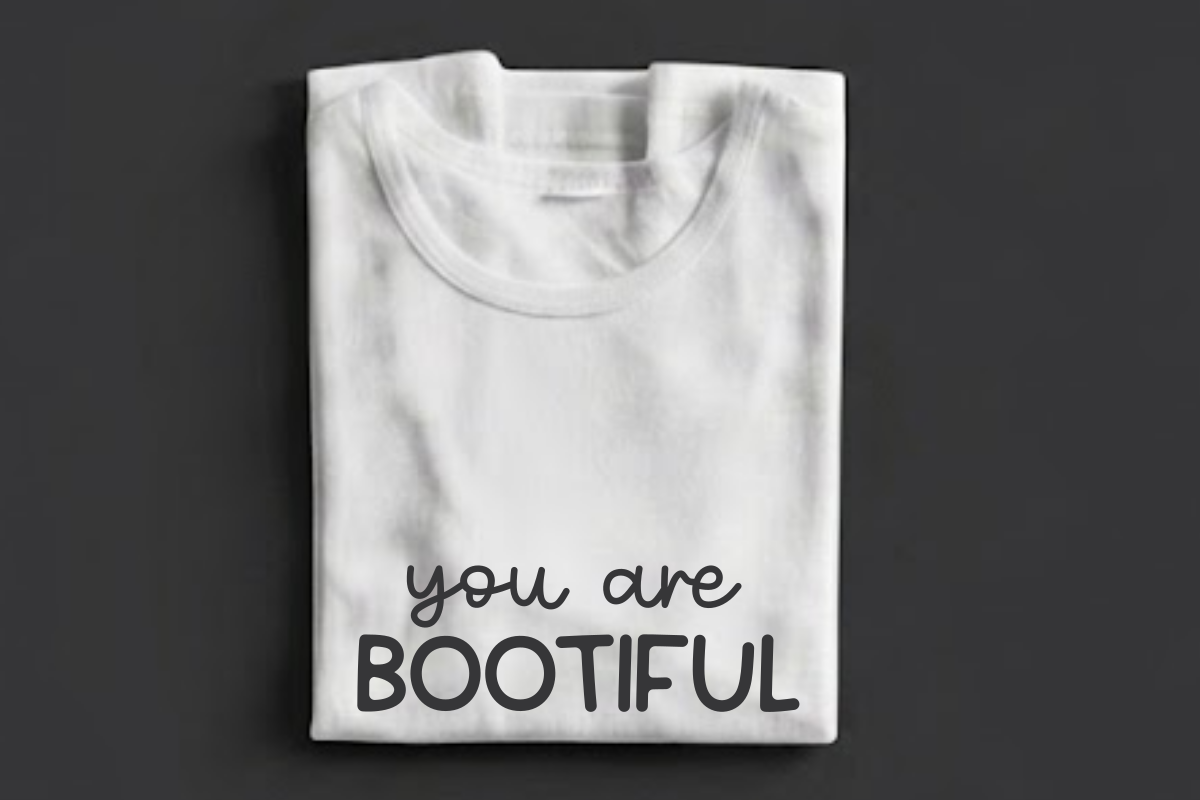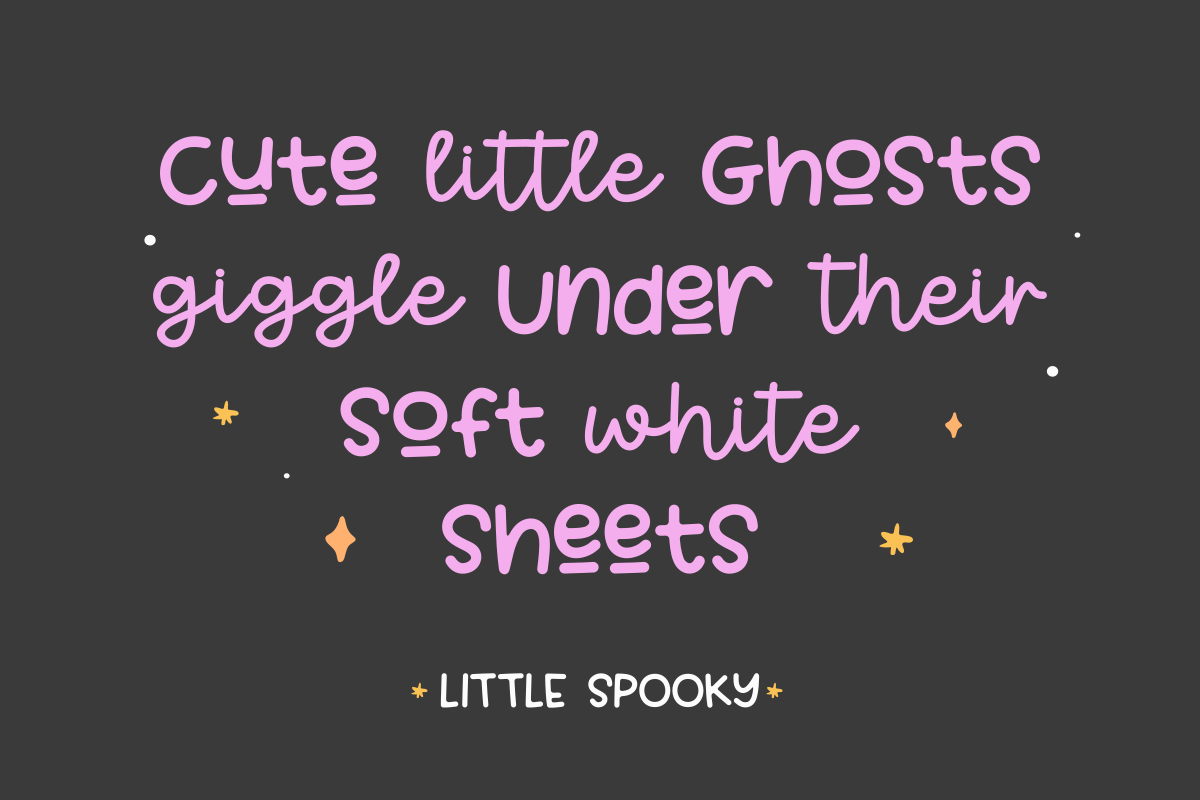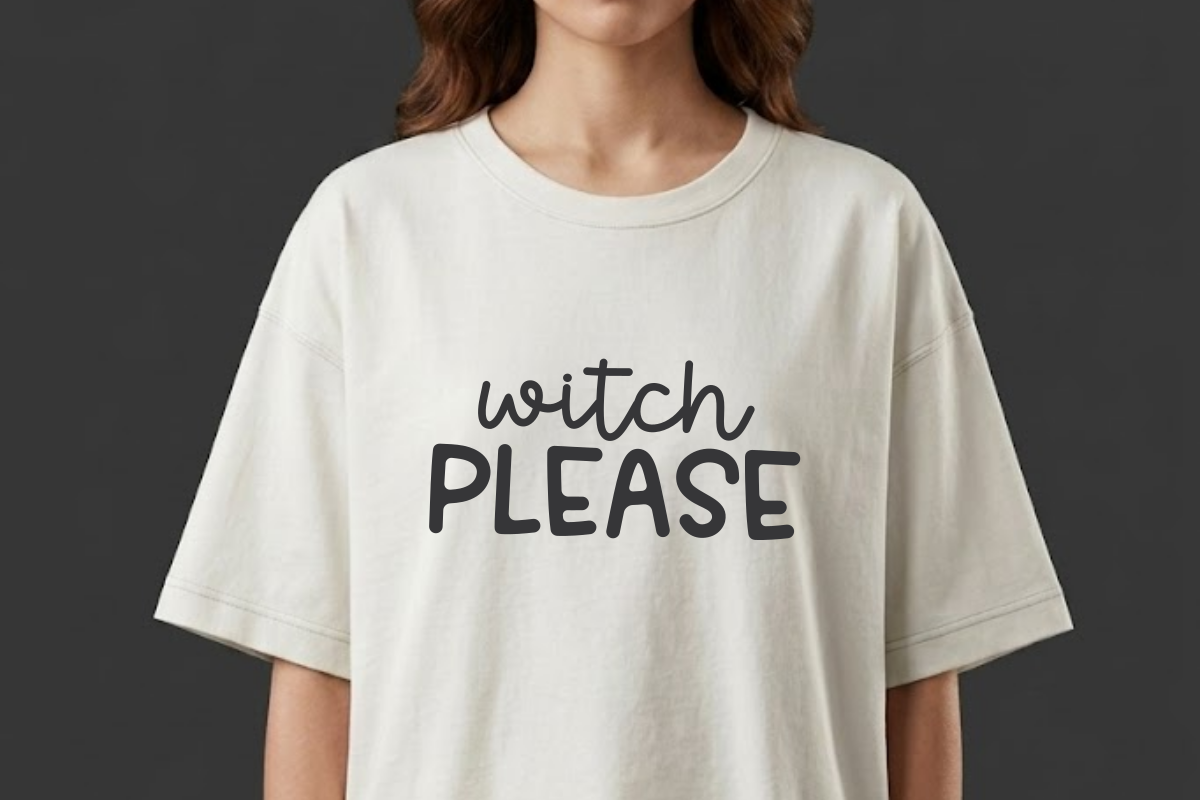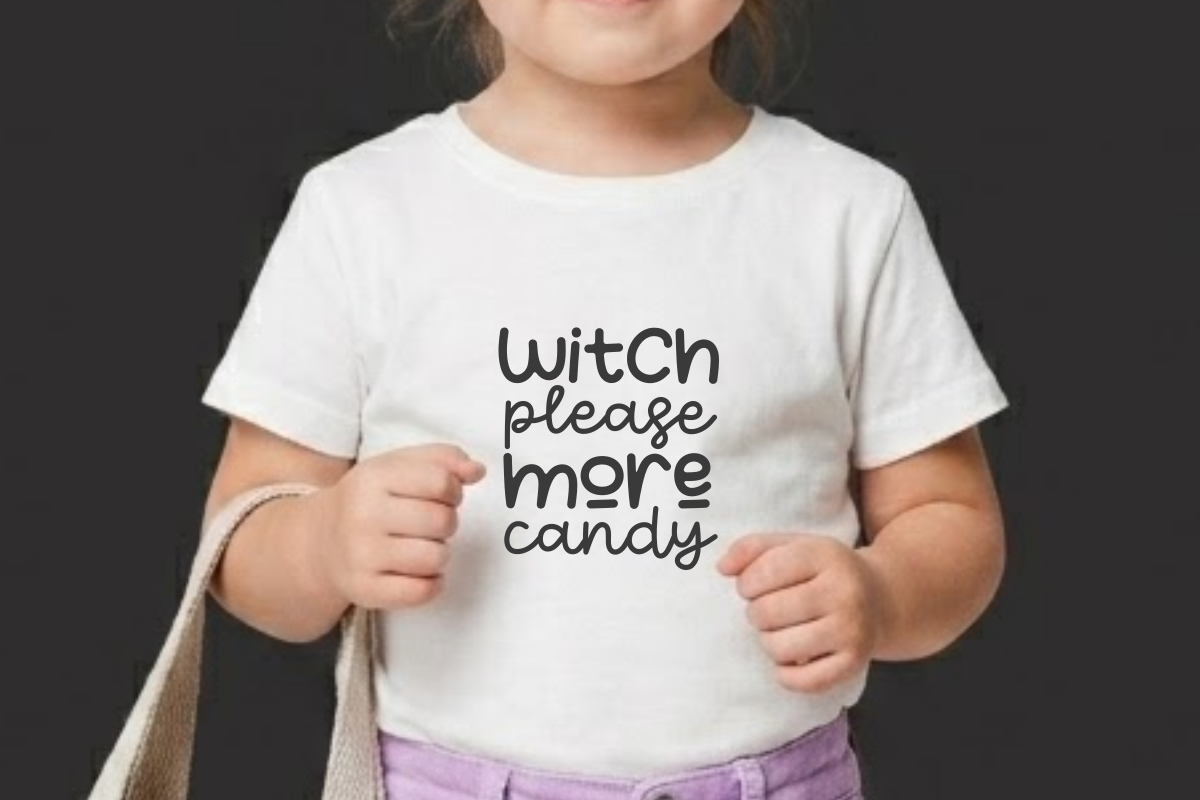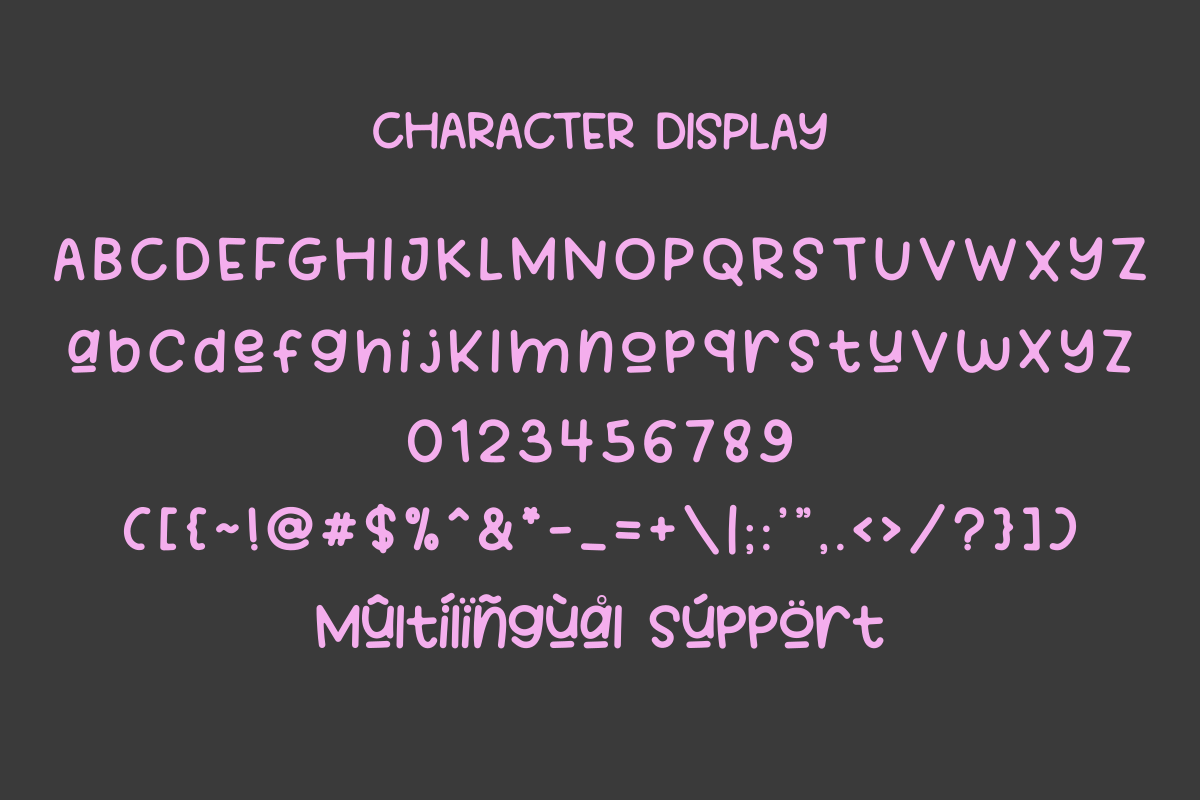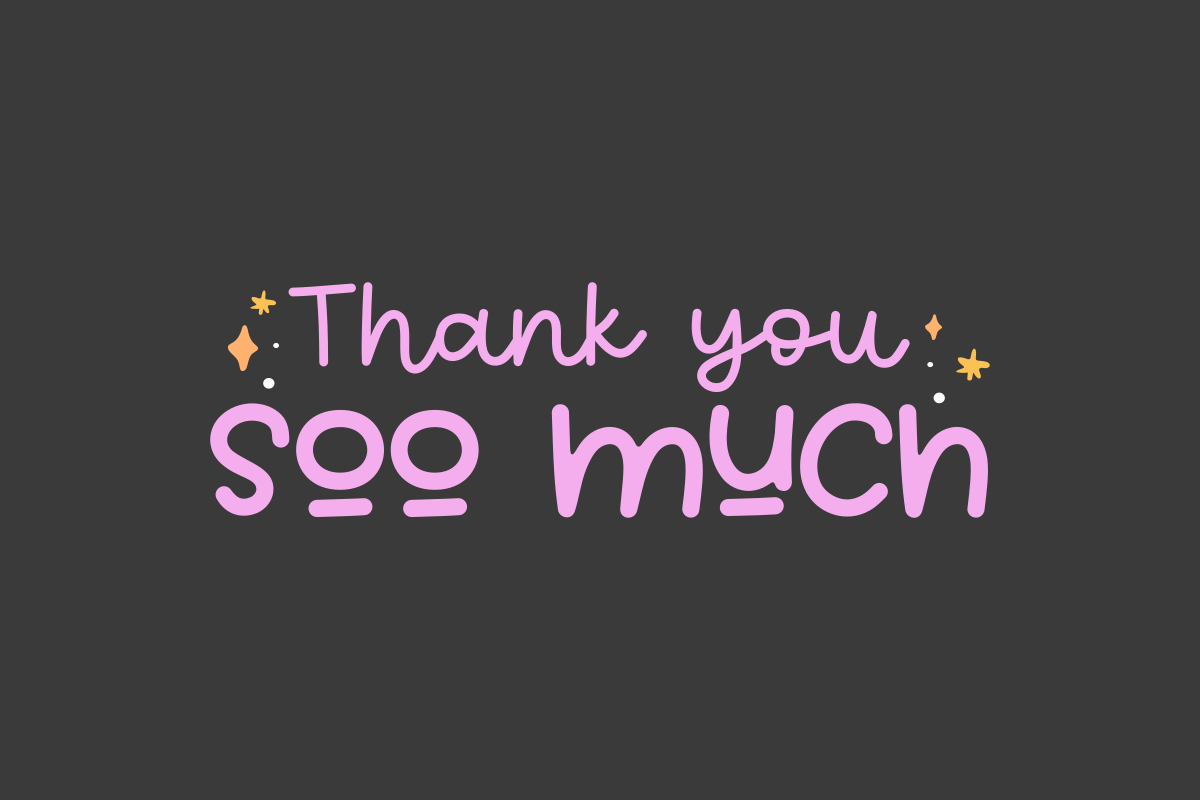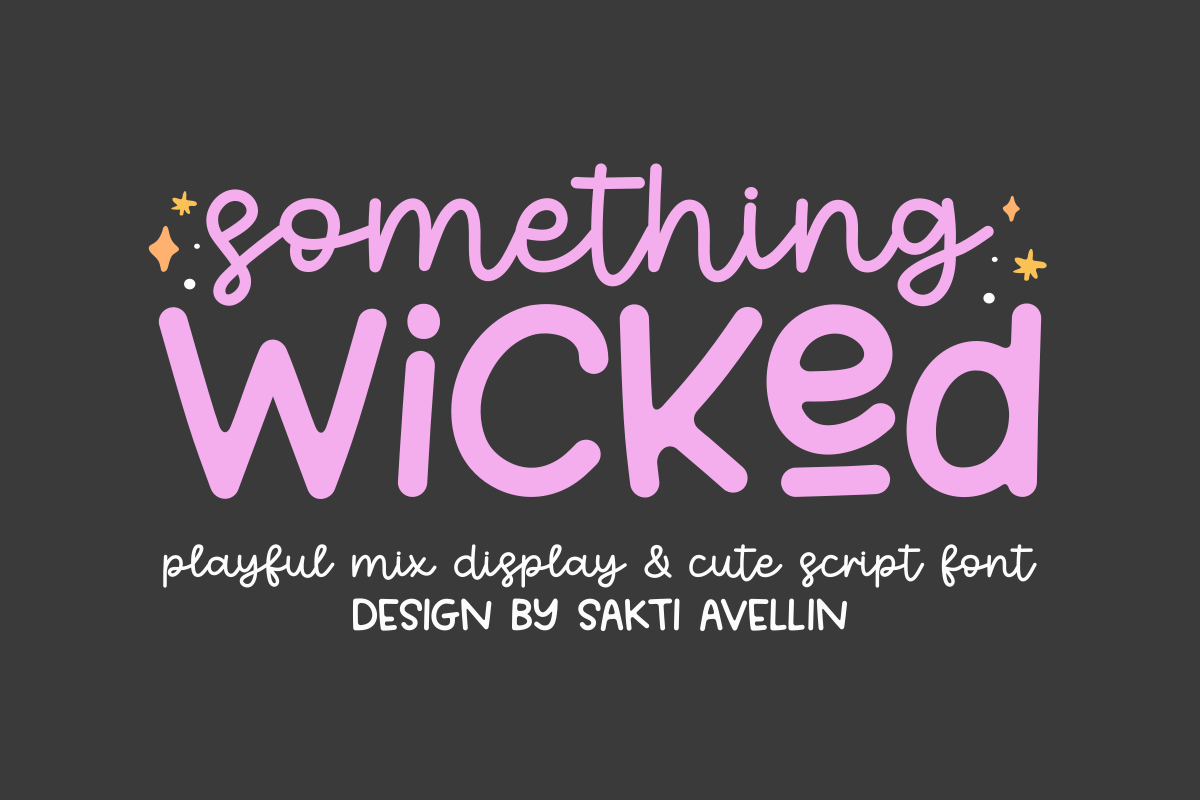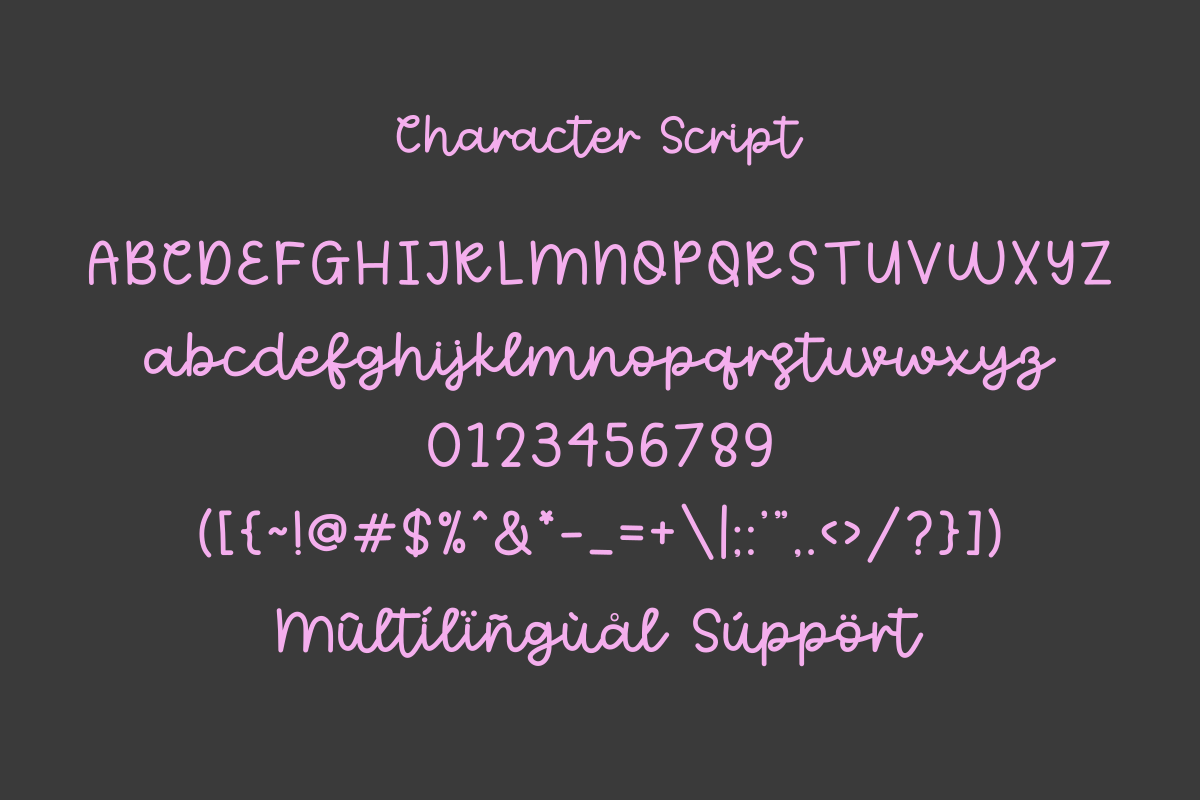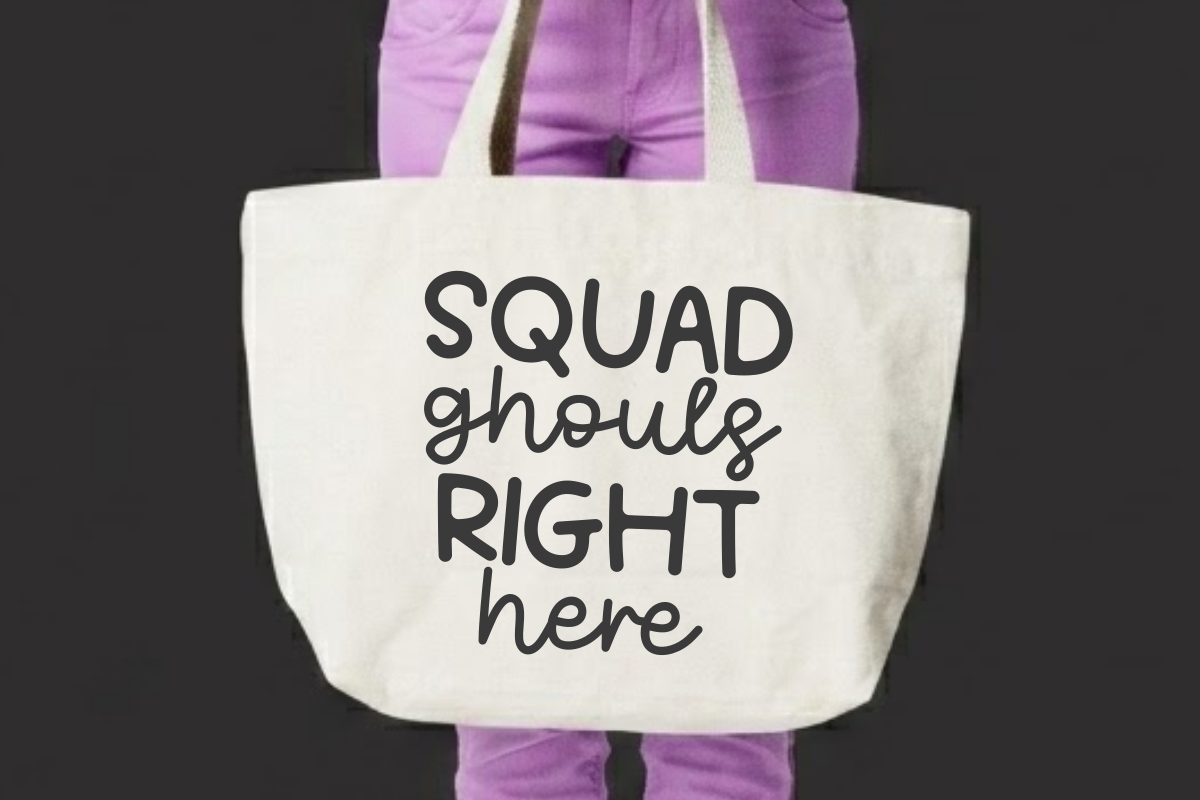
Something Wicked - Playful Mix Font
Something Wicked is a charming and versatile playful mix display & cute script font designed to bring a magical, whimsical energy to your creative projects. This delightful pairing features a bold display typeface for "WICKED" and a smooth, flowing handwritten script for "something," making it an ideal choice for Halloween branding, mystical party invitations, spooky-cute stickers, children's products, and cheerful social media graphics. Its balanced and organic aesthetic ensures your designs feel warm, inviting, and full of personality. Whether you are creating festive packaging, apparel, or whimsical stationery, Something Wicked adds a charming touch to every design.